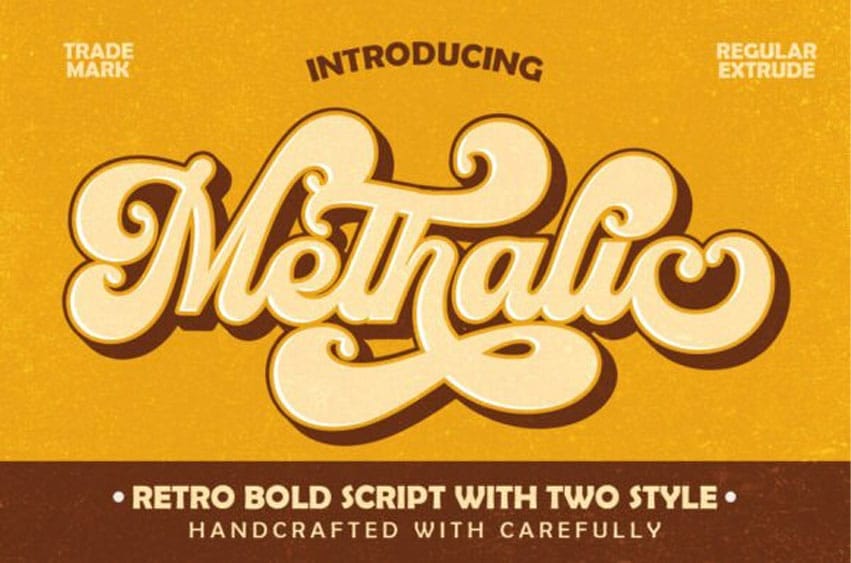
Methalic Font is a bold and groovy retro script font, inspired by the iconic typography of the late ’60s and ’70s. Its funky curves and playful flow capture the vibrant energy of vintage design, making it perfect for projects that celebrate nostalgia with a modern twist.
This font comes with a built-in shadow style, eliminating the need for extra effort to create an extruded effect. With Methalic Script, you can instantly achieve a bold, dimensional look, saving you time and effort in your design process.
Perfect for posters, logos, album covers, or any project needing retro flair, Methalic Script adds personality and charm to every design.